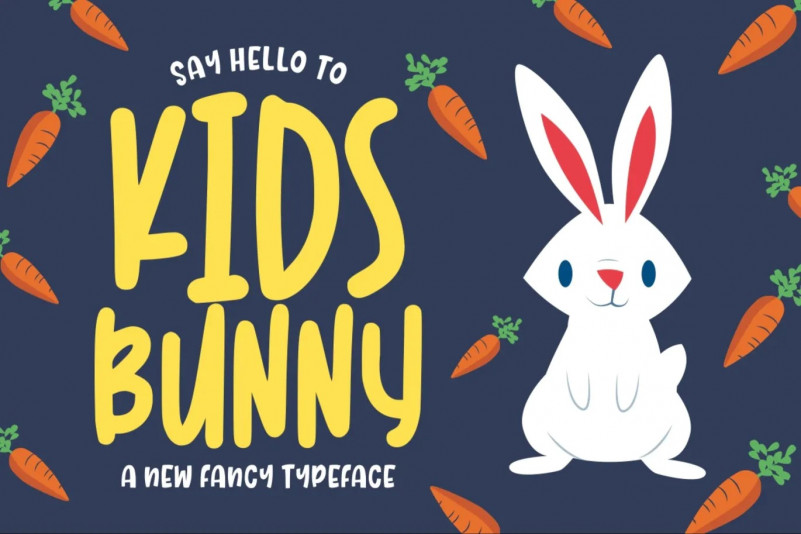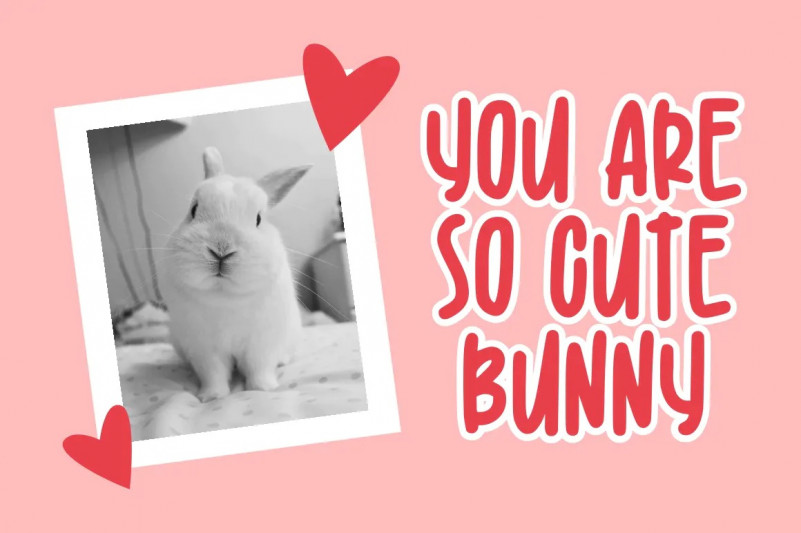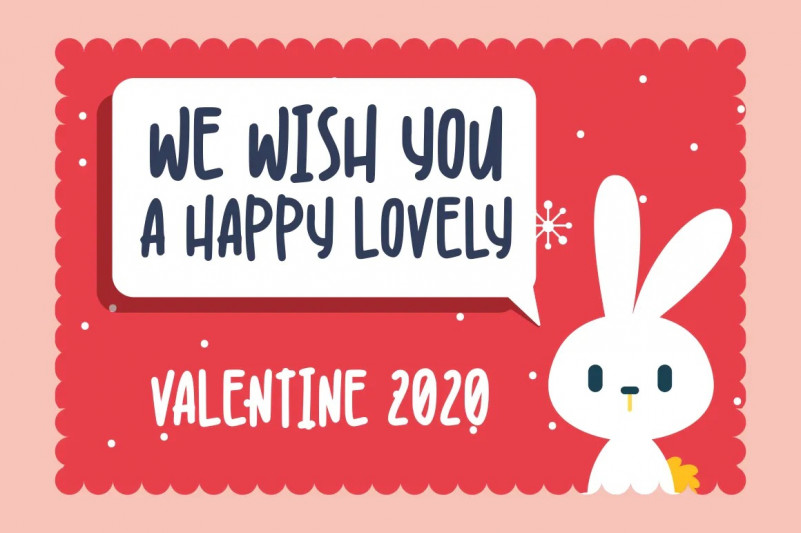
Kidsbunny Font
Kidsbunny is the perfect font for all your fun designs. The main font file is equipped with ordinary characters, as well as more than 350 glyphs to support most Latin-based languages. Everything is made with the same brush, and everything is the same size as Letter Kids, so you can be sure they will work well together! It is suitable for you to use in making t-shirt design, quote, label, packaging, logo type, or long writing. Because we have compiled kerning and matrices that are tailored to your needs.